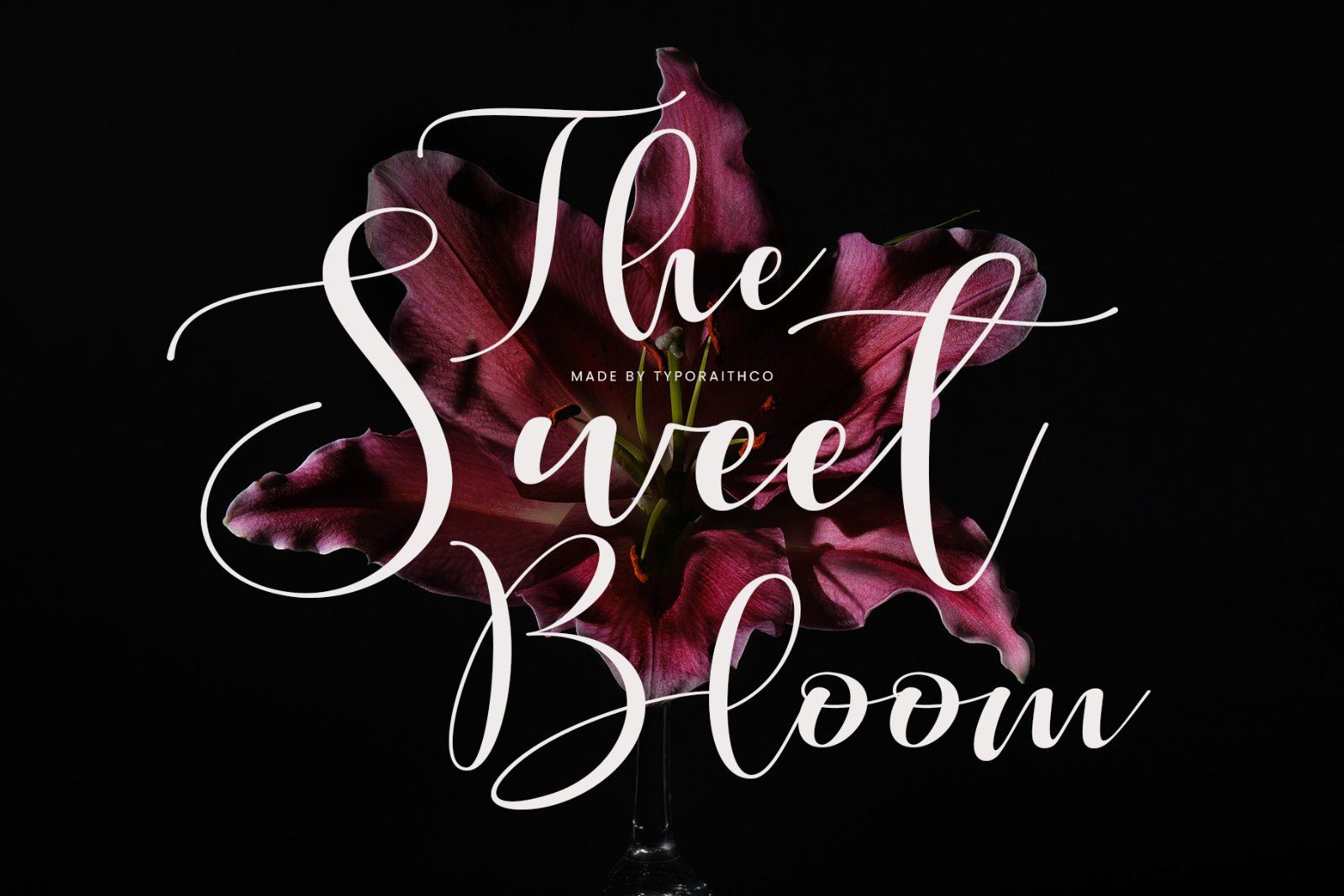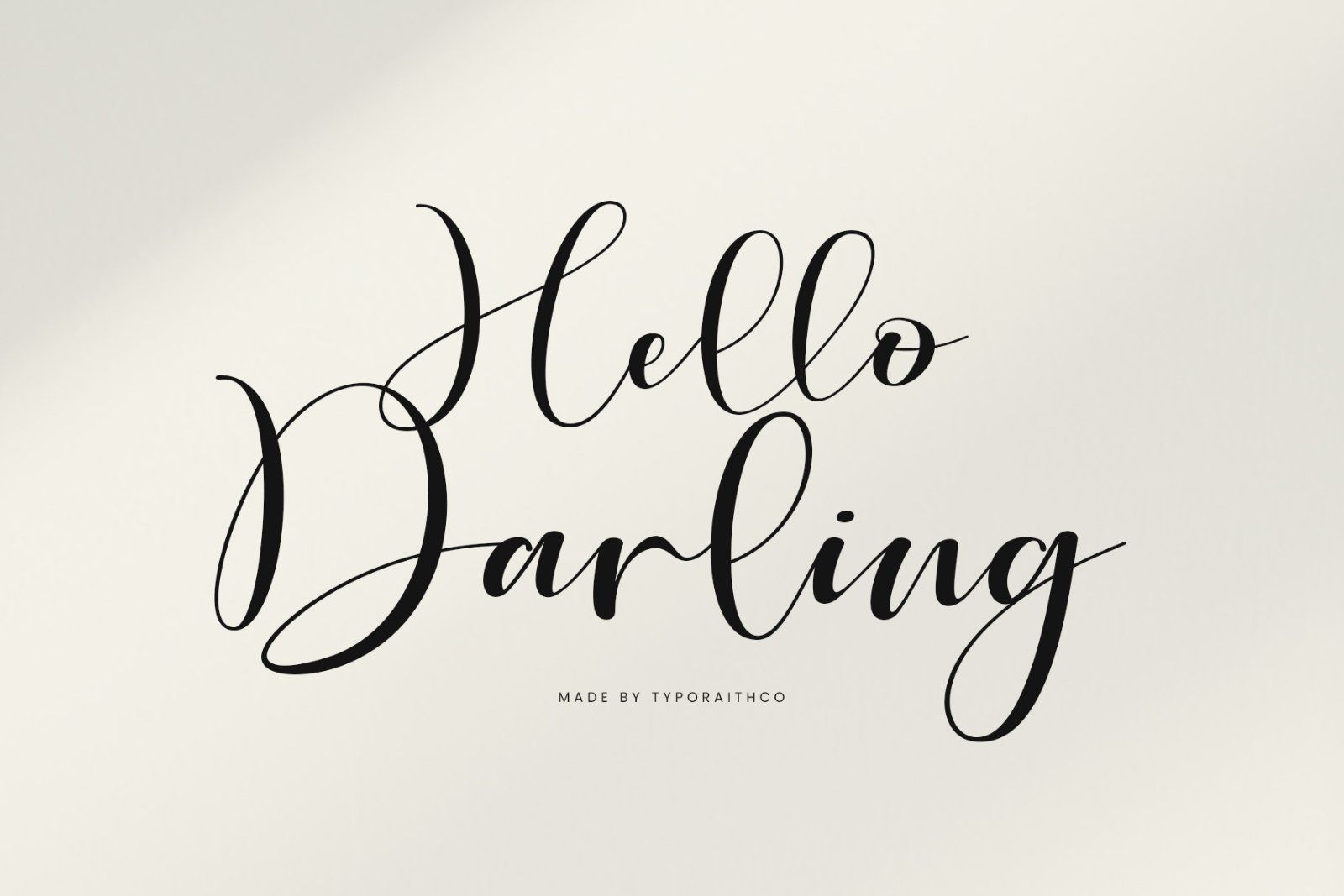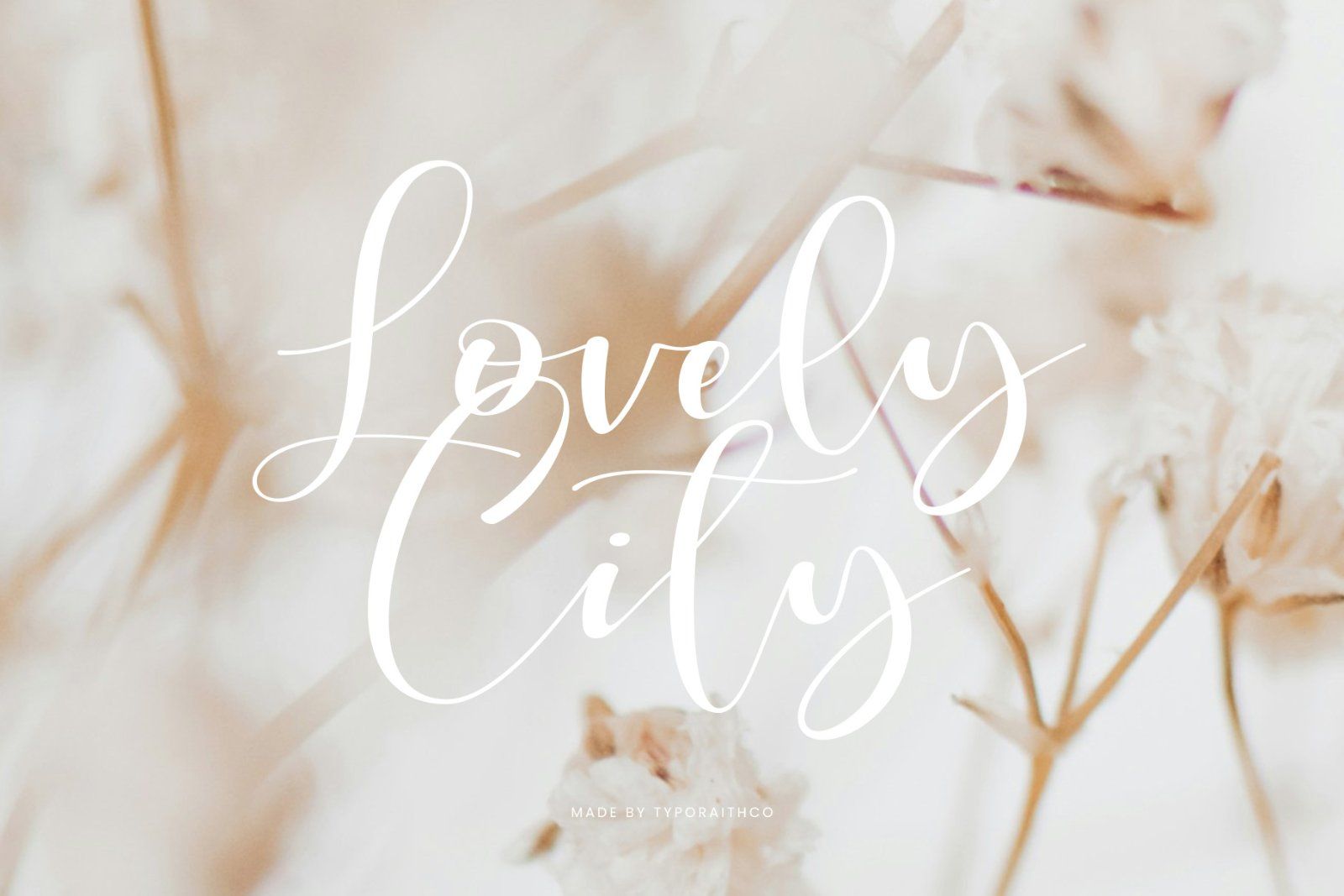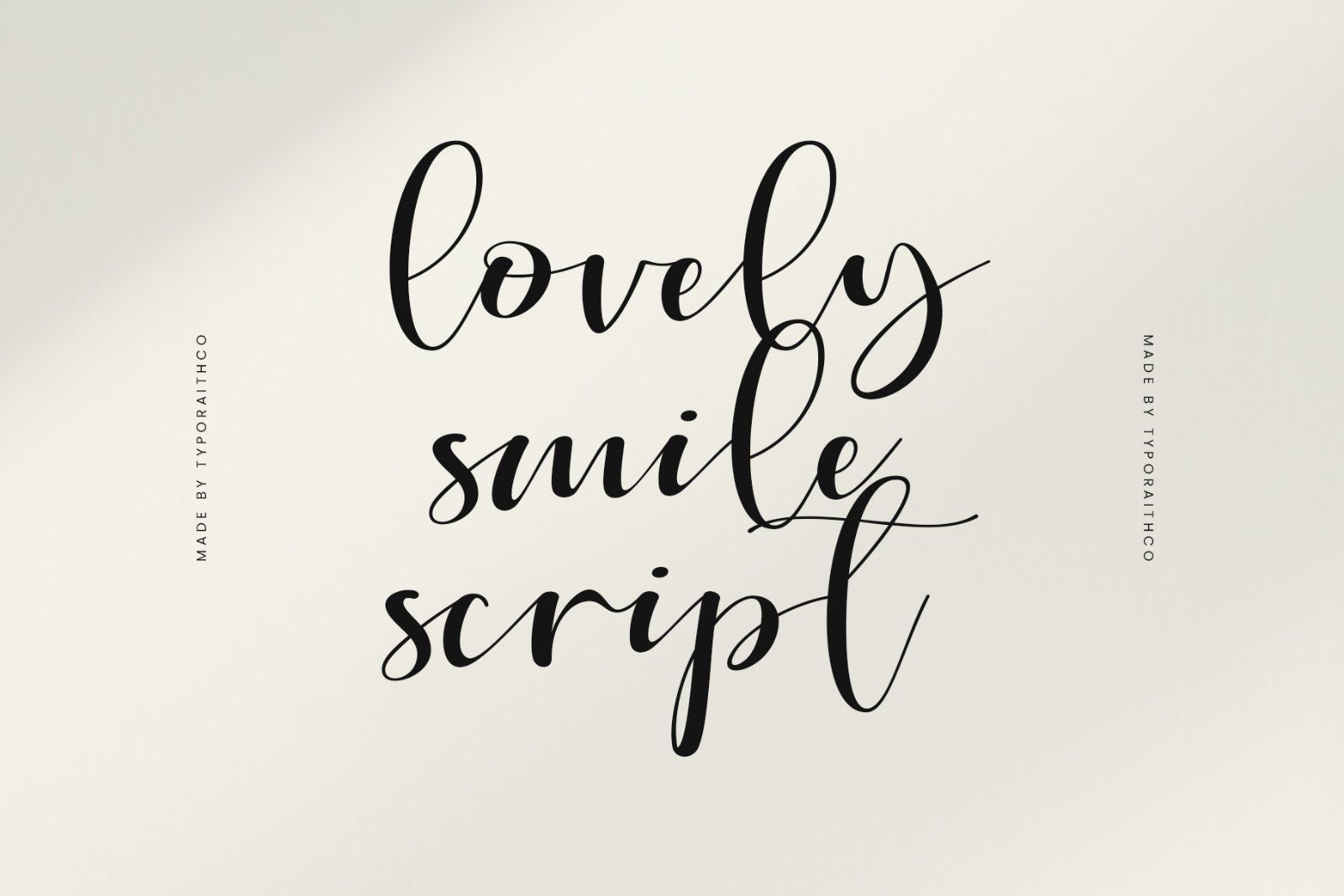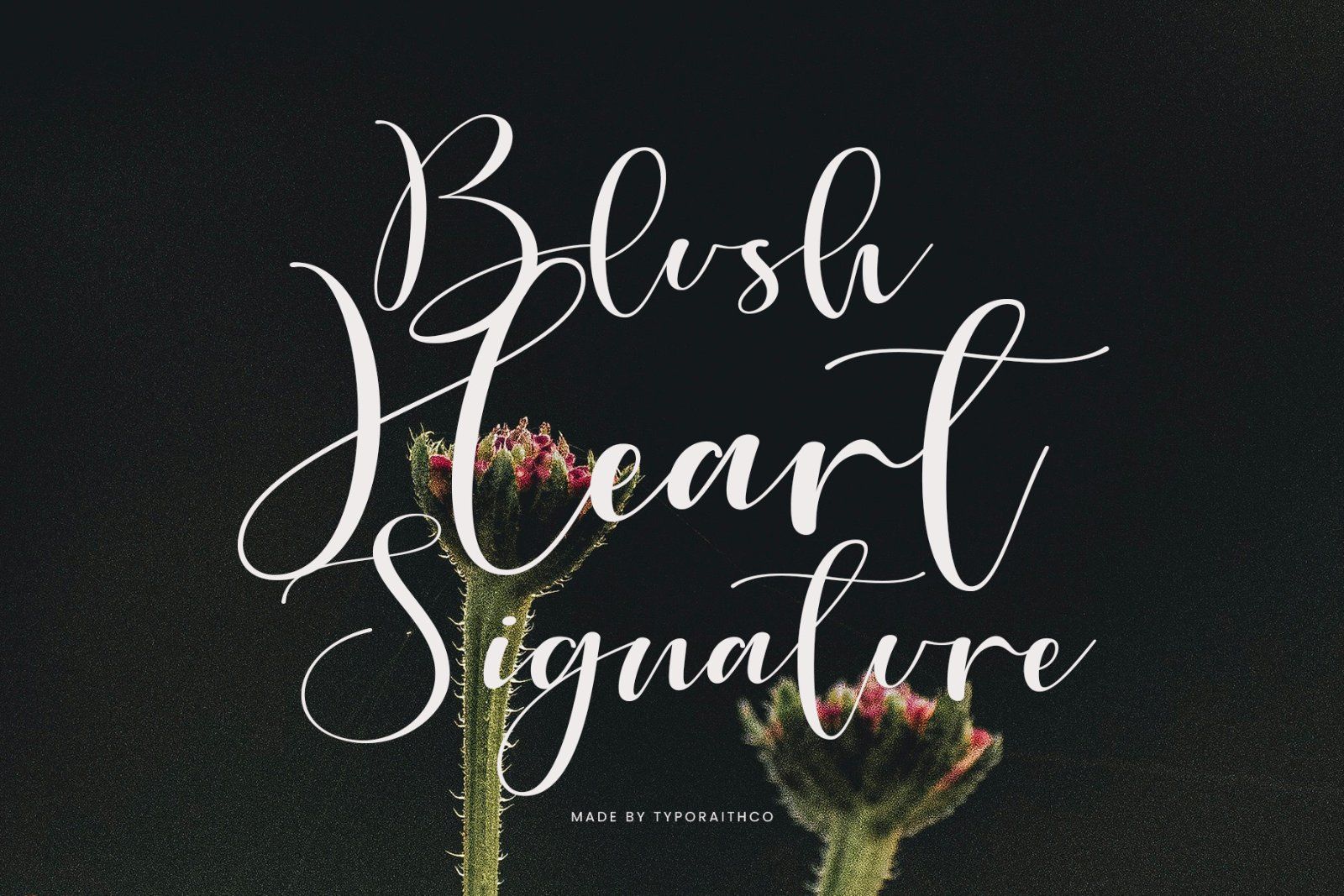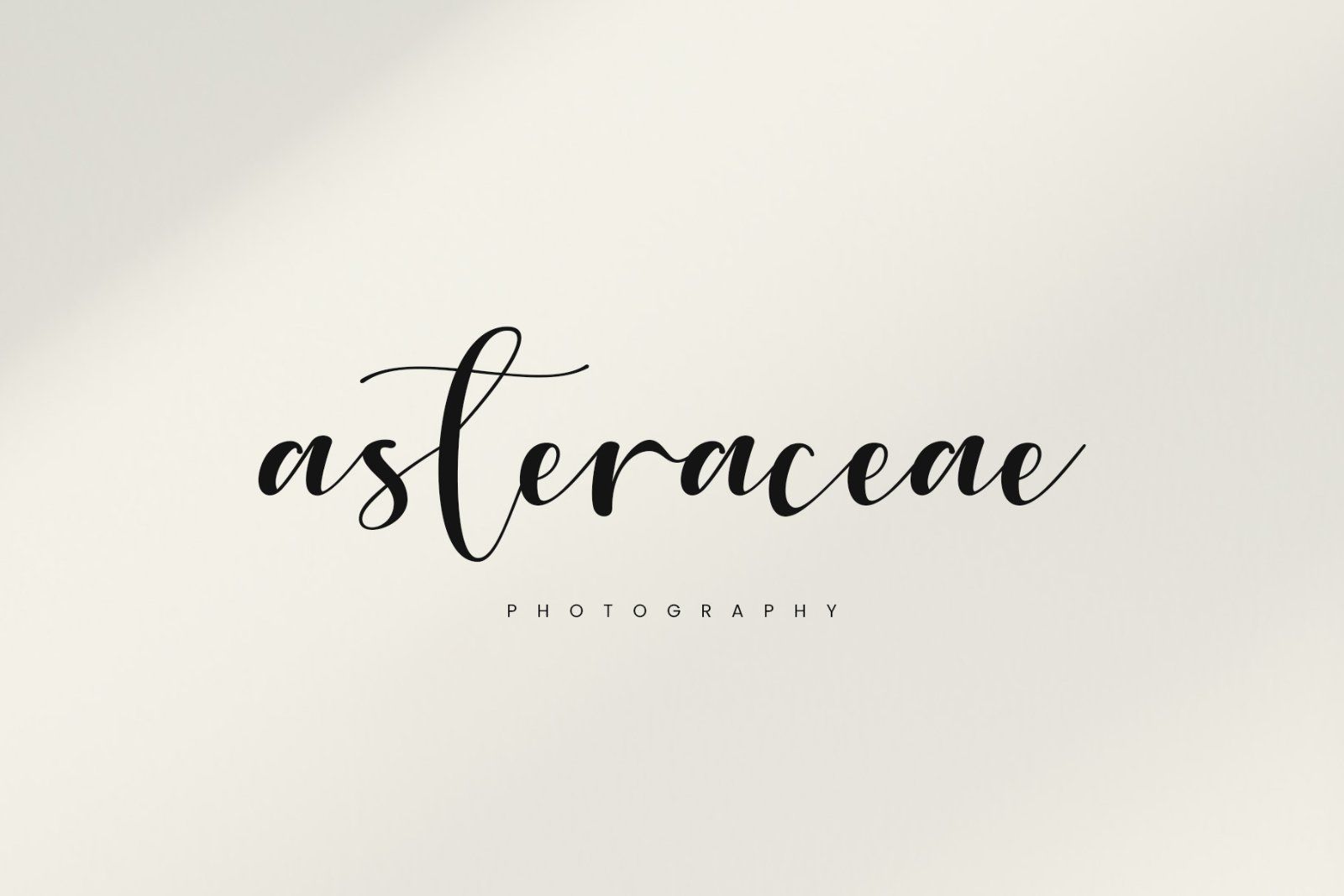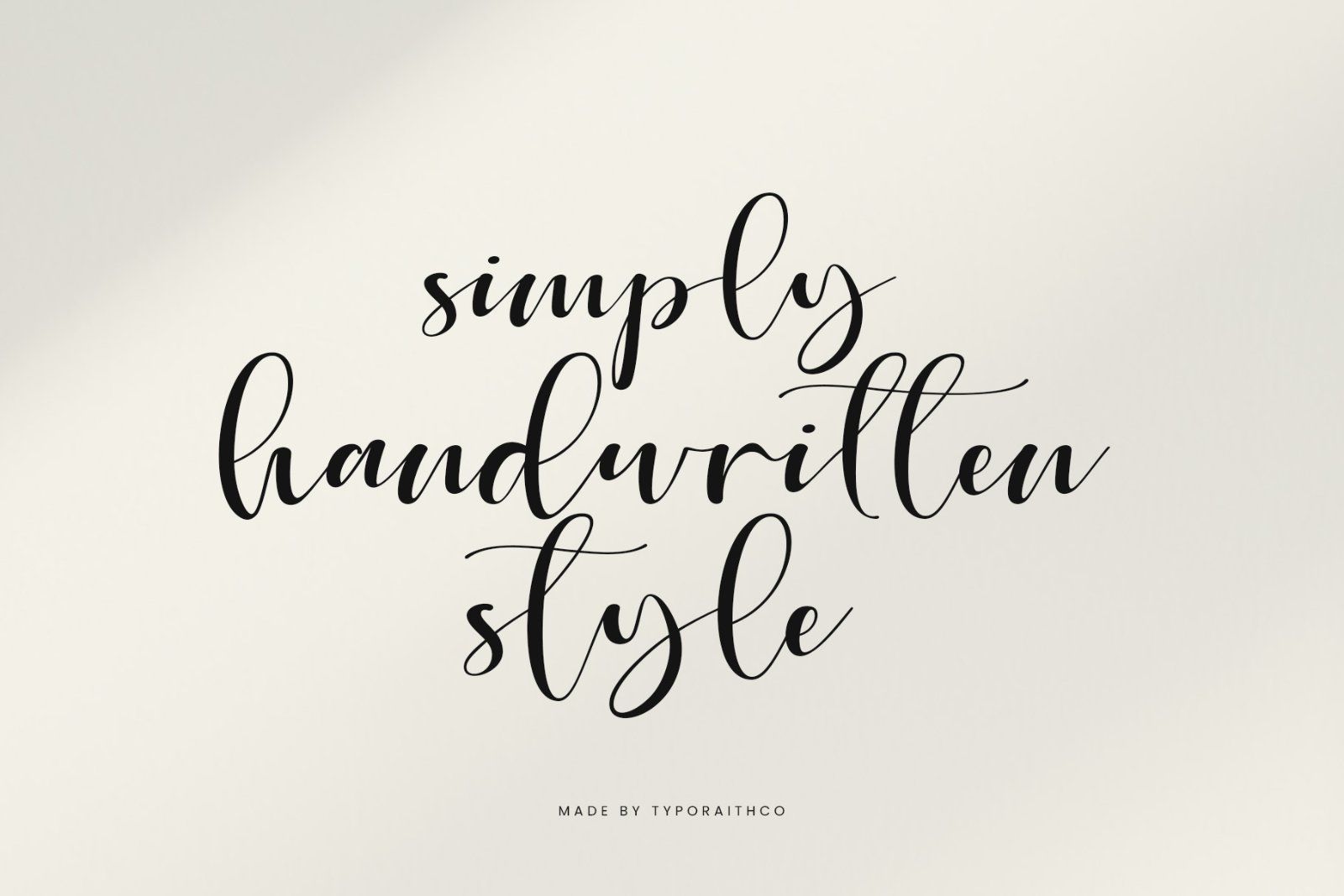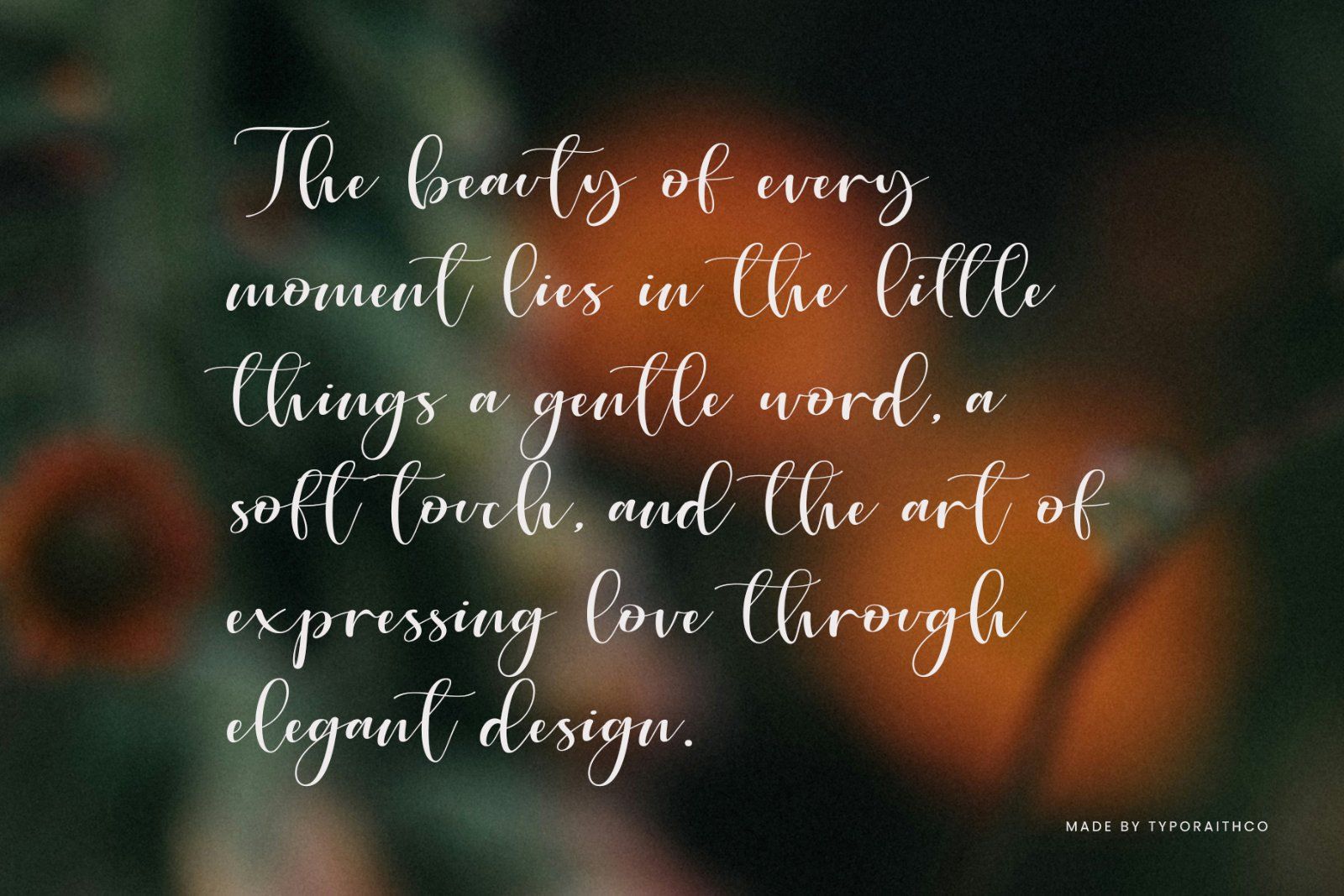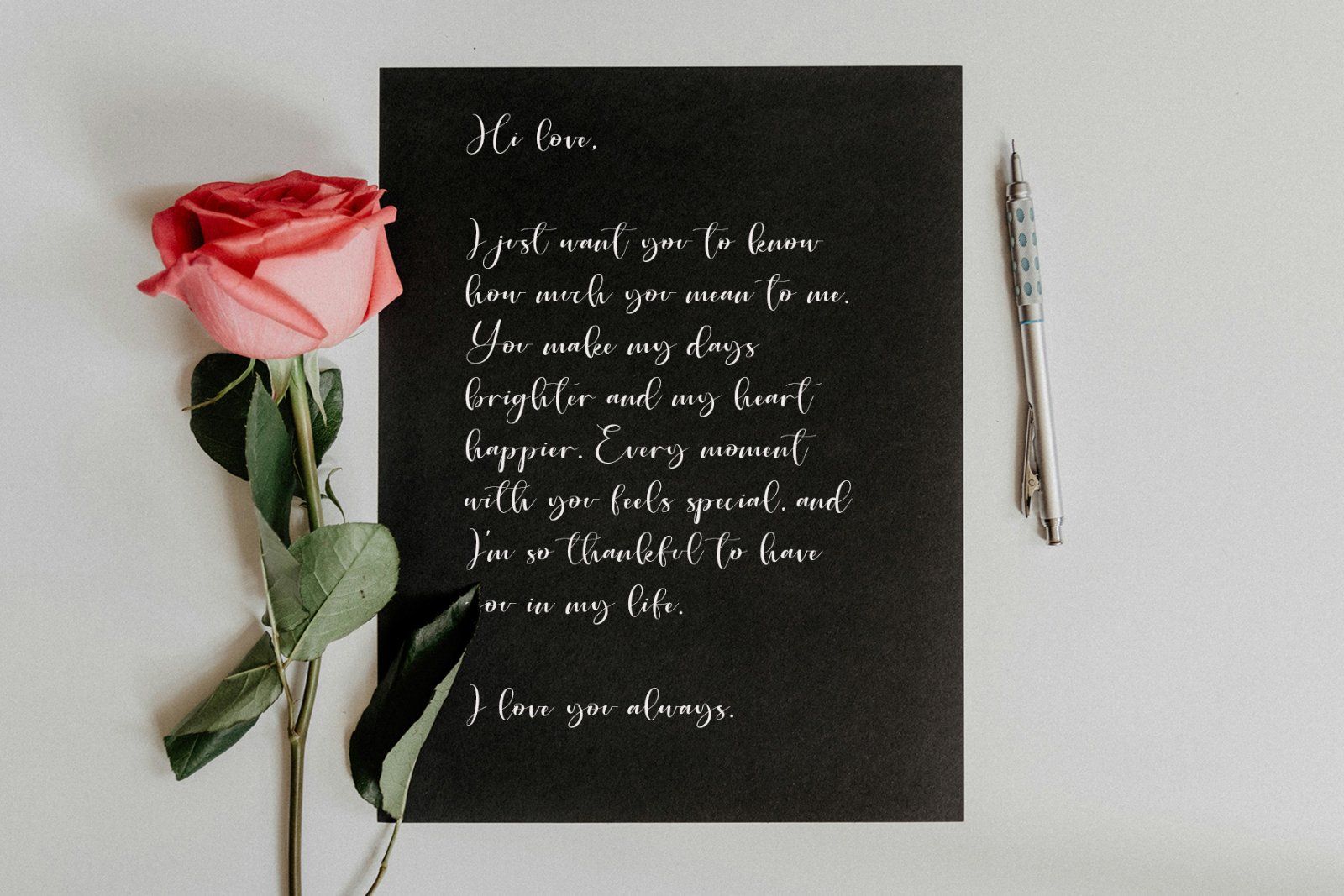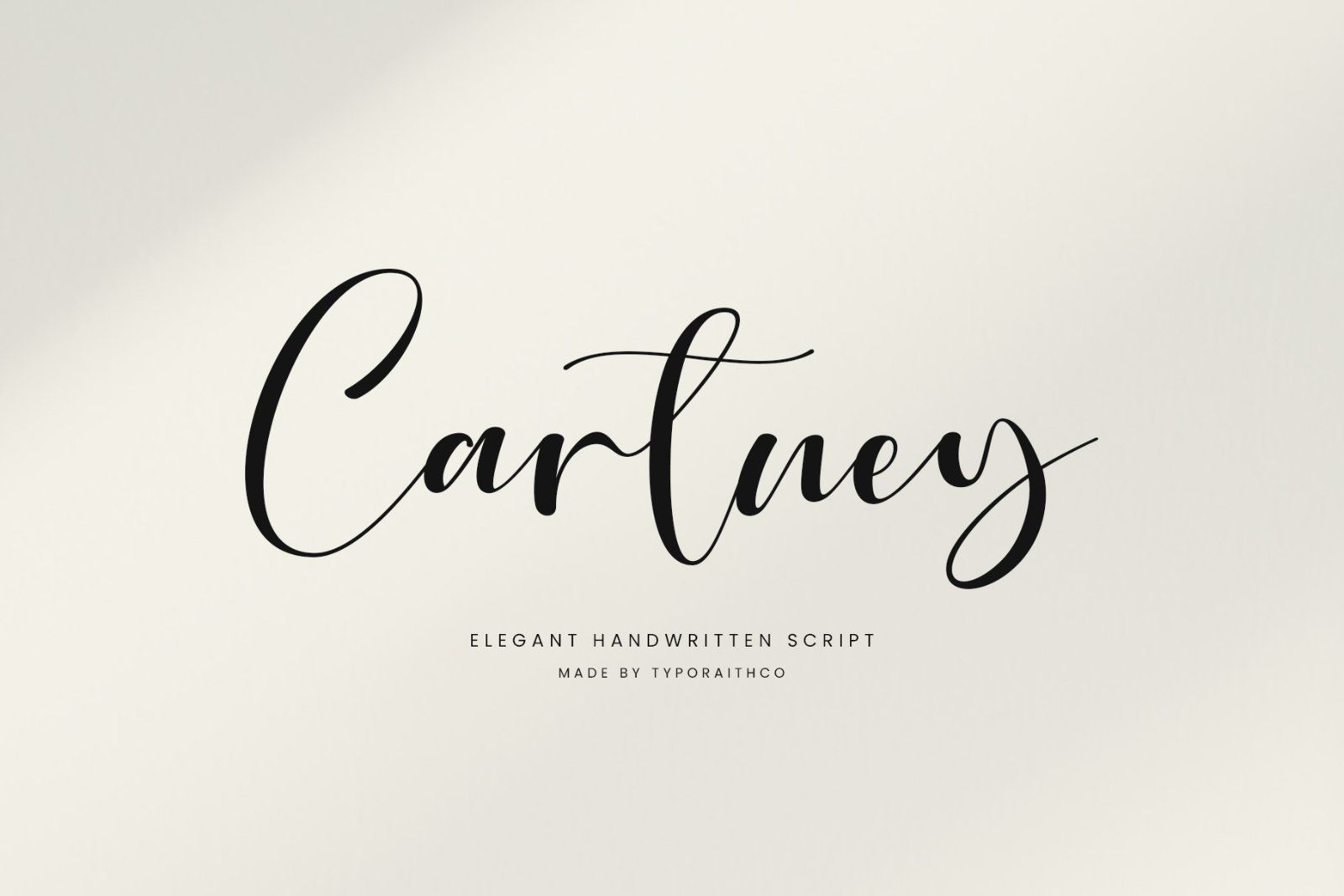
Cartney | Elegant Handwritten Script Font
Introducing Cartney, an elegant and modern handwritten script that brings a touch of sophistication to your creative projects. With smooth curves, natural flow, and stylish details, Cartney is perfect for branding, wedding invitations, logo designs, social media posts, and more.
This font is designed to give your text a graceful and timeless feel, making every word look effortlessly beautiful.
• Full uppercase and lowercase letters
• Numbers and punctuation
• Multilingual support & Ligatures
• Wedding invitations & stationery
• Branding & logo design
• Social media quotes
• Product packaging
• Photography watermark
• Greeting cards
Bring a sense of elegance and charm to your work with Cartney – Elegant Handwritten Script. A perfect blend of beauty and versatility in one stylish font.